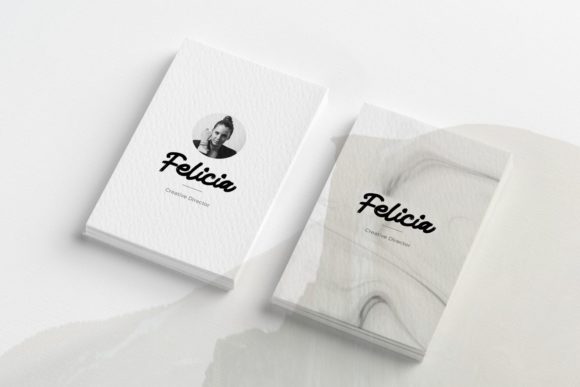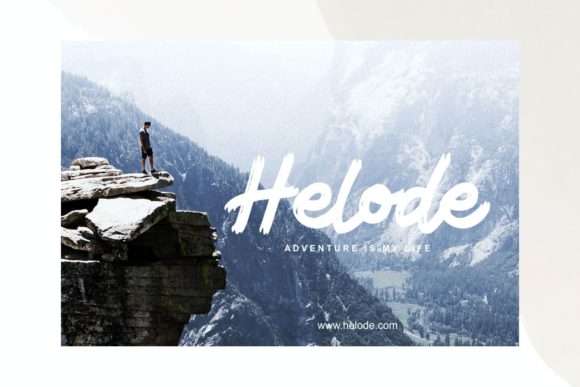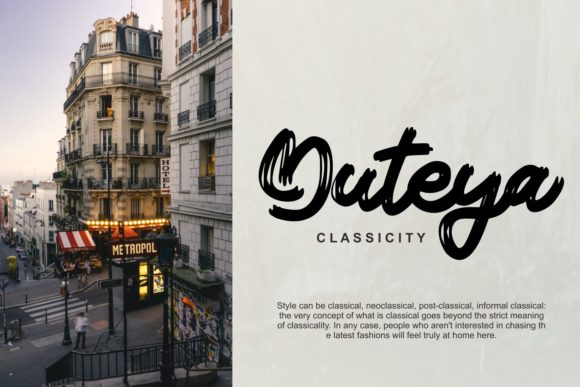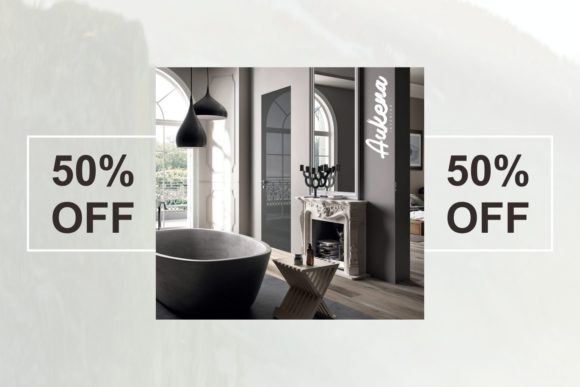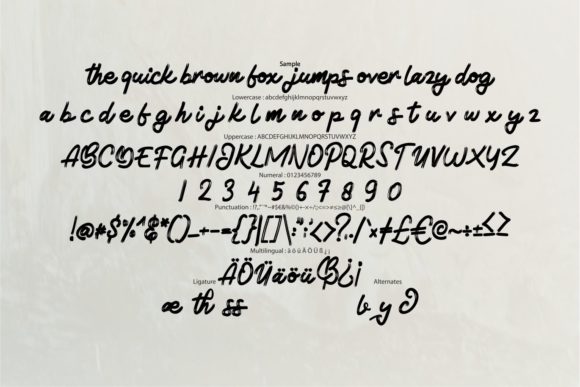
Botade Font
About Botade Font
Botade is a casual, fun handwritten font, created by using a brush pen. Clean and a little bit quirky, this font is the perfect fit for all of your logos, branding, social media, and crafty DIY projects.